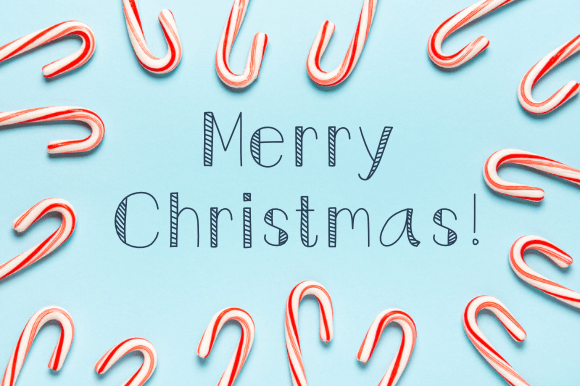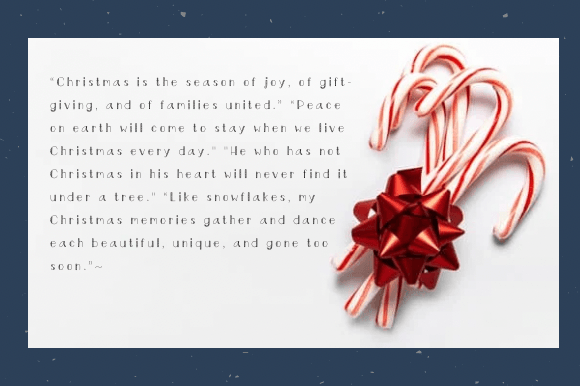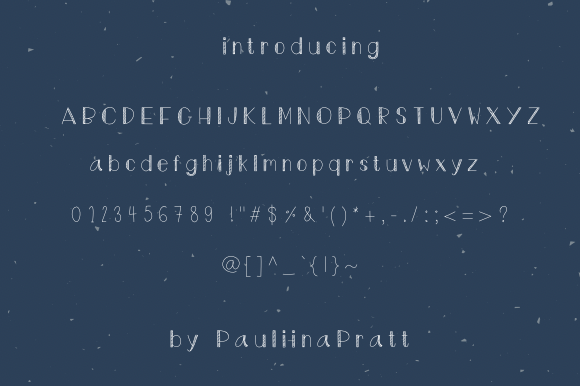
Candy Font: The Sweetest Addition to Your Crafty Projects
Are you a designer or crafter looking for a font that’s as sweet as it is versatile? Look no further than Candy Font! This adorable handwritten font is perfect for adding a touch of whimsy and charm to your crafty projects. With its beautiful and well-balanced characters, Candy Font is suitable for a wide range of creative endeavors.
What Makes Candy Font So Special?
Candy Font is a unique and eye-catching font that’s sure to make your projects stand out. Its handwritten style gives it a personal and friendly feel, making it perfect for crafts, DIY projects, and other creative endeavors. The font’s characters are beautifully designed, with a perfect balance of curves and lines that make it easy to read and visually appealing.
Perfect for Christmas Crafts and Festive Decor
One of the best things about Candy Font is its versatility. It’s perfect for use in Christmas crafts, festive decor, and other holiday-themed projects. Imagine using Candy Font to create beautiful handmade cards, gift tags, and decorations for your holiday celebrations. The font’s playful and cheerful style is sure to add a touch of magic to your projects.
Crafty Ideas to Use Candy Font
- Handmade cards and gift tags for special occasions
- Festive decorations, such as garlands, banners, and signs
- Crafty DIY projects, such as wood signs, candles, and soap labels
- Beautiful journal pages and scrapbook layouts
- Adorable social media graphics and blog posts
Why Designers and Crafters Love Candy Font
- Easy to read: Despite its playful style, Candy Font is easy to read and understand, making it perfect for use in a wide range of projects.
- Versatile: Candy Font is suitable for use in a variety of creative projects, from crafts and DIY projects to social media graphics and blog posts.
- Unique: Candy Font has a unique and eye-catching style that’s sure to make your projects stand out.
- Handwritten style: The font’s handwritten style gives it a personal and friendly feel that’s perfect for crafts and other creative endeavors.
Tips for Using Candy Font
- Use it sparingly: While Candy Font is adorable, it can be overwhelming if used too much. Use it sparingly to add a touch of whimsy to your projects.
- Pair it with other fonts: Candy Font pairs well with other fonts, such as sans-serif fonts and script fonts. Experiment with different pairings to find the perfect combination for your project.
- Experiment with colors: Candy Font looks great in a variety of colors, from bright and bold to soft and pastel. Experiment with different colors to find the perfect shade for your project.
In conclusion, Candy Font is a sweet and versatile font that’s perfect for designers and crafters. Its beautiful and well-balanced characters make it suitable for a wide range of creative projects, from Christmas crafts and festive decor to DIY projects and social media graphics. With its easy-to-read style, unique handwritten style, and versatility, Candy Font is sure to become a favorite in your design or crafting arsenal.